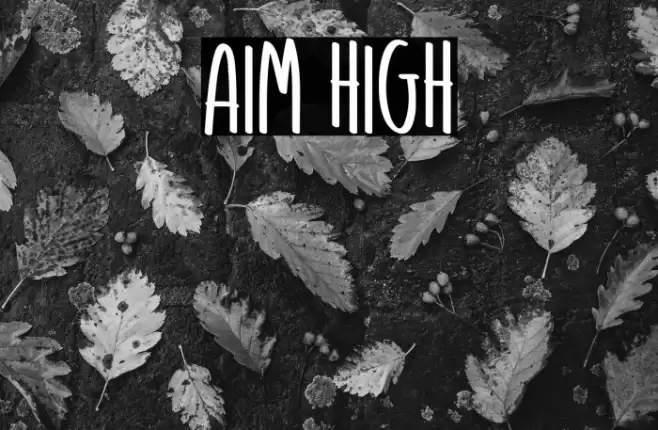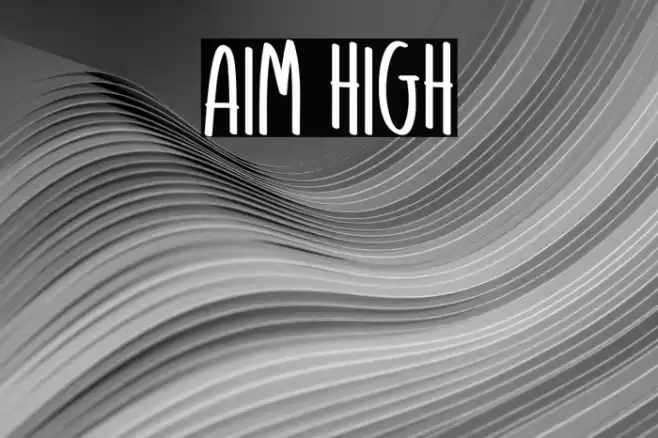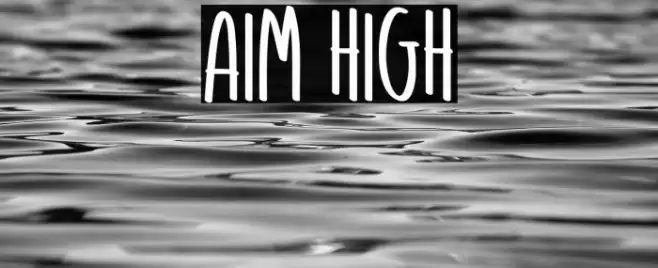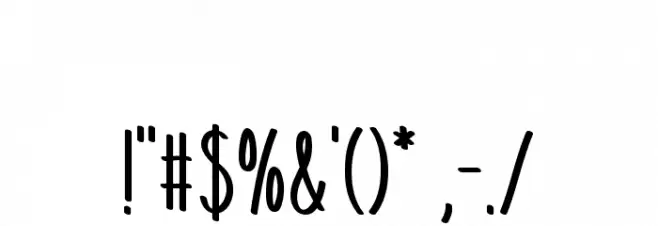
Aim High Font
Aim High Description
This font features a playful and modern design with a handwritten style. The letters are tall and slightly narrow, giving them a unique and approachable appearance. The strokes are consistent in thickness, providing a clean and uniform look. The characters have a slight slant, adding a dynamic and energetic feel. The font includes both uppercase and lowercase letters, as well as numbers and a variety of special characters. Its whimsical nature makes it suitable for creative and informal projects.
A playful, handwritten font with a modern and dynamic style from Regular fonts.
- Proposed Projects: Ideal for greeting cards, children's books, playful branding, and social media graphics.